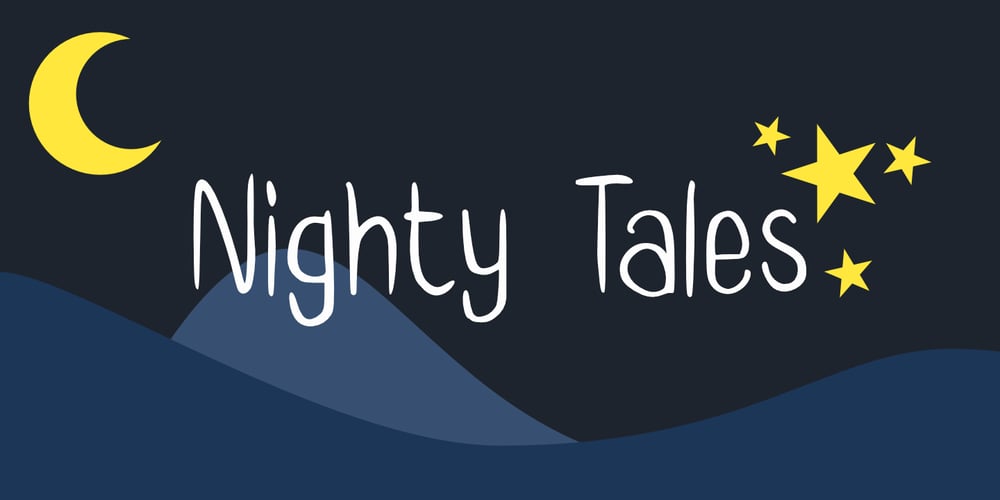
Nighty Tales GT Font Family was designed by Gumilang Anggara Ruslan and published by Gartype Studio. Nighty Tales GT contains 1 styles and family package options. Inspired by thin, childly, unique handwriting style, we present to you Nighty Tales, a handwritten font with thin and childly characters that was comes with alternates and multilingual glyphs to help people around world with that unique accent with this font.Nighty Tales is very suitable like as text, cover book, posters, handwritten style, and more.That way easily change the glyphs to make more unique glyphs.